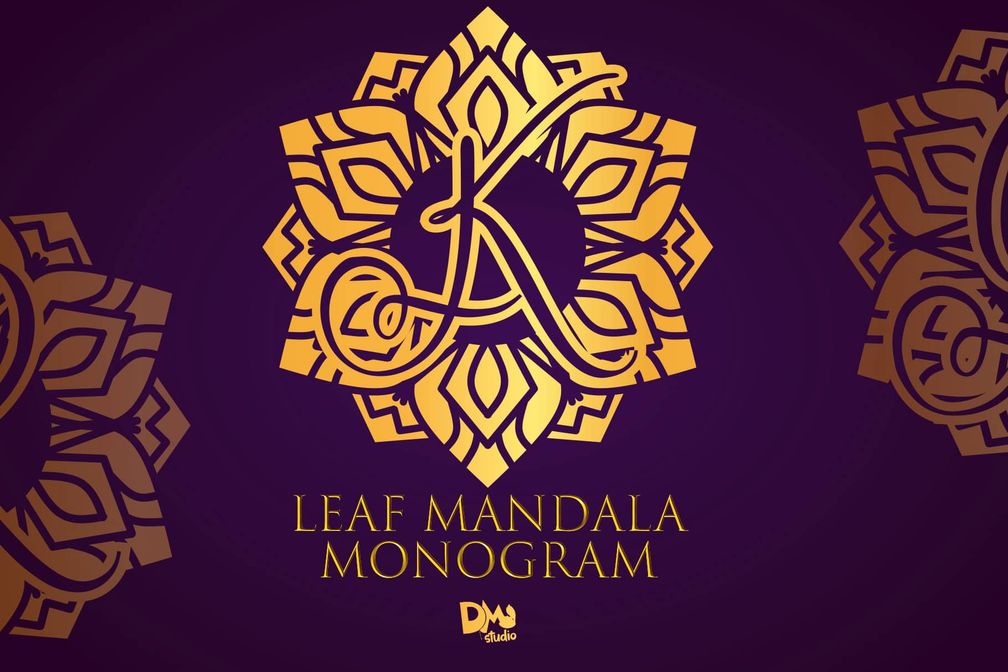
Leaf Mandala Monogram
Leaf Mandala Monogram – Nature-Inspired Elegant Monogram Font
Leaf Mandala Monogram is a beautifully detailed monogram font that seamlessly blends delicate leaf motifs with intricate mandala designs. Inspired by the beauty of nature and the harmony of organic patterns, this font is ideal for botanical branding, eco-conscious packaging, wedding invitations, holistic wellness projects, and handmade product designs. It offers a fresh and elegant touch that brings a sense of life and serenity to any creative work.
• Botanical Leaf & Mandala Motifs: Each letter is adorned with flowing leaf patterns and ornate mandala detailing.
• Fresh & Artistic Look: Combines natural elements with fine artistic lines for an elegant, timeless style.
• Full Character Set: Includes uppercase, lowercase, numbers, punctuation, and multilingual support.